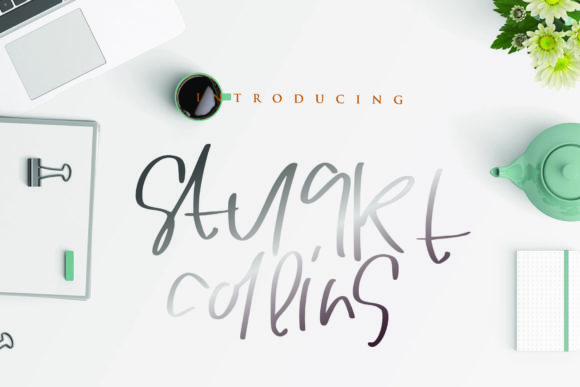
**Introducing Stuart Collins: The Ultimate Signature Font for a Handcrafted Masterpiece**
In a world of digital perfection, there's something captivating about the organic, handcrafted touch. Meet Stuart Collins, the signature font that Emulates the Intimacy of a Personal Note. With its elegant brush strokes and timeless charm, Stuart Collins takes your words beyond the screen, turning them into a tangible expression of your creativity.
Step into the world of Stuart Collins, where the casual elegance of calligraphy blends seamlessly with the charm of a handwritten note. This remarkable font captures the essence of individuality, allowing your words to dance across the page with a unique and captivating flair.
**Unleash Your Inner Artist with Stuart Collins**
Unleash your inner artist and let your creativity flourish with the remarkable Stuart Collins font. Whether you're a seasoned calligrapher, a DIY enthusiast, or Simply someone who appreciates the beauty of handwritten letters, Stuart Collins is your perfect creative Companion.
Imagine your words taking shape as if written by hand, carrying the warmth and personality that only a genuine signature can convey. Create stunning Instagram posts that captivate your audience, design heartfelt invitations that touch their hearts, or add a personal touch to your DIY projects with Stuart Collins.
**Transform the Ordinary into an Extraordinary Masterpiece**
With Stuart Collins as your creative ally, you'll elevate the ordinary into an extraordinary masterpiece. Its Signature Design Renders Every Word You Write into a Work of Art. The unique blend of font styles allows you to craft Logos That Speak Volumes, Quote Designs That Inspire, and Greeting Cards That Warm Hearts.
Join the community of passionate creatives who have embraced Stuart Collins as their trusted font. Let your words flow effortlessly from idea to creation, leaving a trail of visual delight in their wake. Stuart Collins isn't just a font; it's an extension of your creative soul, waiting to be unleashed upon the world.
**Experience the Magic of Stuart Collins Now**
Embark on a creative journey like no other with Stuart Collins. Experience the beauty of handwritten elegance, the power of personal expression, and the satisfaction of turning your creative visions into breathtaking realities. Seize this opportunity to redefine your creative horizons and leave a lasting impression with every word you write. Stuart Collins is more than just a font; it's a tool for creative liberation and self-expression.